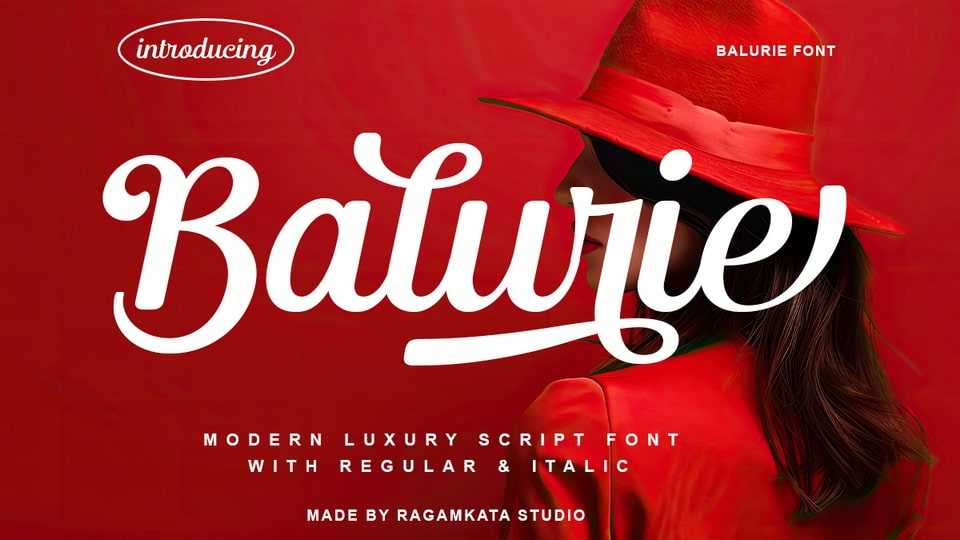
Download Balurie font, a luxury script typeface with noble and vintage looks. It has beauty at the beginnings of the strokes, swash capitals and formal design.